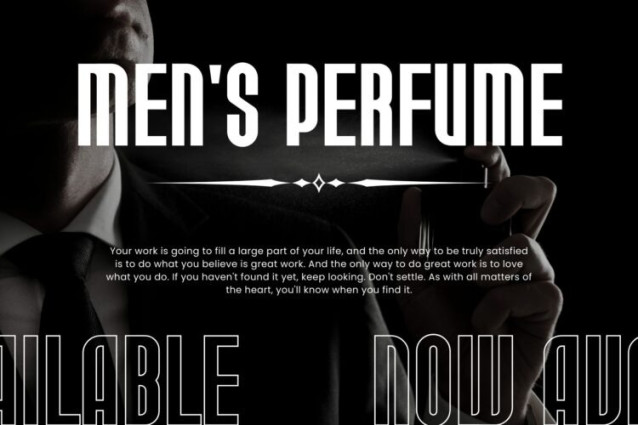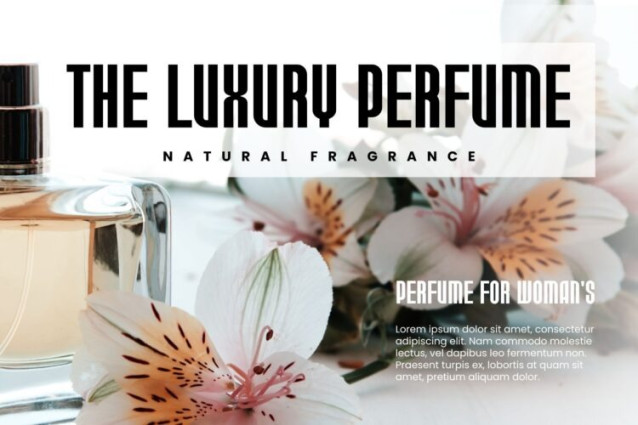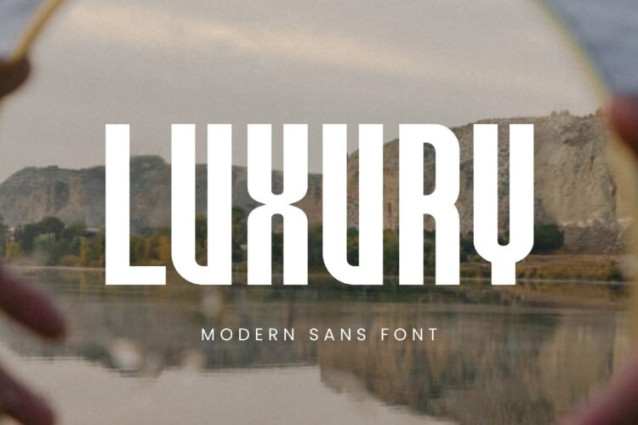
Luxury Sans Font
Luxury Sans Font, modern sans serif font with elegant style this is perfect for branding, logos, invitation, magazines, product packaging and more.